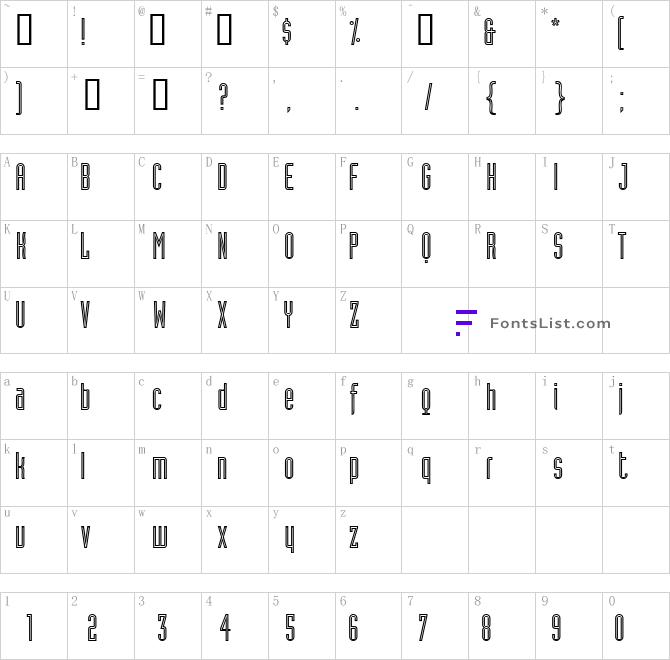
- Font Name:AssemblyAlternateSSK
AssemblyAlternateSSK.ttf is a very beautiful artistic font, AssemblyAlternateSSK.ttf is widely used in the design and printing of various books and pictures,AssemblyAlternateSSK.ttf has a strong visual impact,AssemblyAlternateSSK.ttf is a commonly used font in newspapers, magazines and books, and is used in posters, e-commerce Poster design, store design, logo design, font design and other fields.AssemblyAlternateSSK.